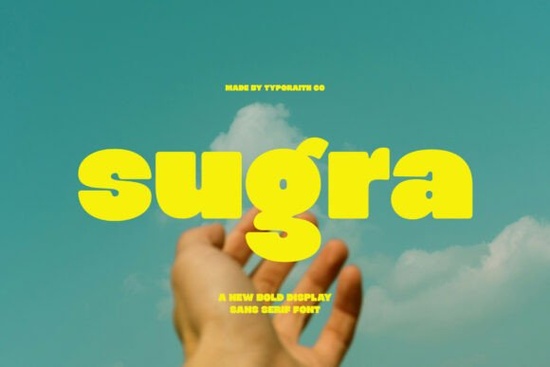
Sugra Font is a chunky sans serif typeface designed to bring boldness and positivity to your creative projects. Its rounded corners and soft curves give it a distinctive look that feels both strong and approachable. Whether you're working on posters, headlines, logos, or packaging, this typeface adds a fresh, friendly character that helps designs stand out. You can find Sugra on Creative Fabrica, where it's ready for download with a commercial license.
What Makes Sugra Different from Other Chunky Sans Serif Fonts?
Most chunky sans serif fonts lean either too aggressive or too playful. Sugra finds a middle ground. The rounded letterforms soften the bold weight, making it feel inviting rather than heavy. This balance is especially useful for brands that want to appear confident without coming across as intimidating.
Compared to something like Vorn, which carries a more structured and angular style, Sugra takes a gentler approach. It's a solid pick when you need your typography to feel warm and modern at the same time. You can browse Vorn alongside Sugra to see which direction fits your project better.
Where Does This Font Work Best?
Sugra is versatile enough for a range of design applications:
- Posters and flyers The bold weight grabs attention at a glance.
- Logo design Rounded edges make logos feel friendly and memorable.
- Packaging Works well on product labels, boxes, and bags where readability matters.
- Social media graphics Clean shapes render well at both large and small sizes.
- Print-on-demand products Ideal for t-shirts, mugs, and stickers that need a bold, clean look.
- Website headers Adds personality to hero sections and landing pages.
If you're building a brand identity, Cenura offers another rounded sans serif choice that creates interesting contrast when paired with Sugra. You can also check Cenura to explore its full character set.
Can You Use Sugra for Both Retro and Modern Designs?
Yes and that's one of its strengths. The rounded, chunky letterforms carry a slightly retro quality that recalls mid-century advertising or 1970s-inspired graphics. At the same time, the clean geometry keeps it feeling current and polished.
For a retro-themed project, try pairing Sugra with textured backgrounds or muted color palettes. For a modern minimalist layout, let it sit against plenty of white space with simple geometric shapes. The font adapts to both approaches without feeling forced.
For designs with a relaxed, vacation-inspired feel, Ocean Beach brings a summery character that complements Sugra nicely in lifestyle-themed projects. You can find Ocean Beach on Creative Fabrica as well.
Is Sugra a Good Choice for Small Businesses and POD Sellers?
Small businesses often need a single font that works across multiple touchpoints business cards, social media posts, packaging, and signage. Sugra handles all of these without requiring you to juggle multiple typeface licenses. Its bold, legible lettering reads well on both screens and printed materials.
For business owners who aren't trained designers, a font like Sugra simplifies the process. You don't need to spend hours adjusting kerning or weight it's built to look good out of the box with minimal tweaking.
What Fonts Pair Well with Sugra?
Pairing fonts can be tricky, but Sugra's rounded, neutral personality makes it easy to match. Here are a few directions worth trying:
- Sugra + a thin serif Creates contrast between bold headlines and refined body text.
- Sugra + a handwritten script Adds a personal, crafty touch to invitations or packaging.
- Sugra + a monospaced font Gives a modern, tech-forward feel for startup branding.
You can also check out this font pairing guide for more ideas on combining typefaces effectively.